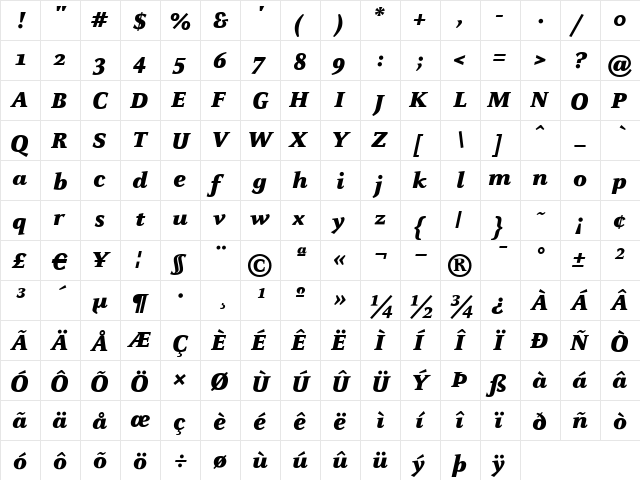
Celeste-BlackItalic Italic
| Foundry | Copr. by Chris Burke, published by FontShop International for the FontFont library |
Design Context for Celeste-BlackItalic Typeface
Celeste-BlackItalic offers clean, dependable letterforms without strong stylistic allegiance, making it a practical choice for designers who need flexibility. The dynamic lean of this cut emphasises speed and emphasis in any layout.